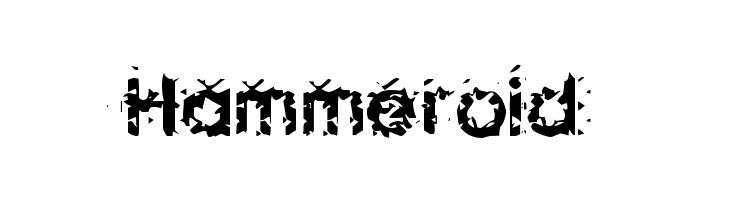
( Fonts by Uddi Uddi )
A playful, whimsical font with irregular strokes and dot embellishments.
( Fonts by Utopia - www.daleharris.com )
A bold, distressed font with a chaotic, grunge style.
( Fonts by Boba Fonts )
A bold, futuristic font with sharp angles and a sci-fi aesthetic.
( Fonts by Boba Fonts )
A futuristic, geometric font with hollow, outlined letterforms.
( Fonts by Dieter Schumacher )
A geometric, thin-stroked font with a modern, square design.